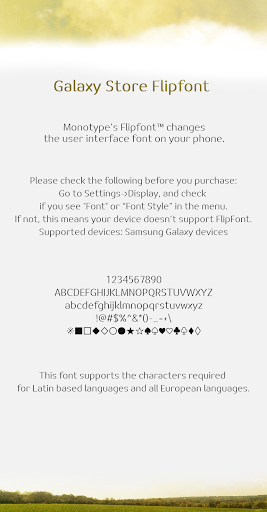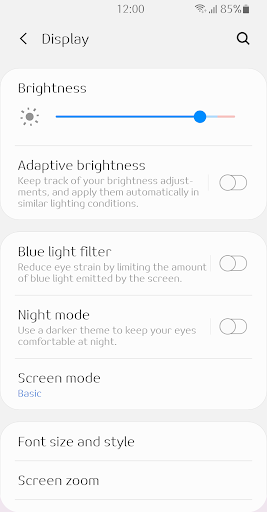
ZFNostalgia
It is a stable font with a sans-serif style.
The difference in thickness between the horizontal and vertical strokes has been used to create a comfortable and stable posture and to optimize the reading of the text.
I close my eyes and think of you, lost in the vague thoughts that come to mind.
It's a longing that fades as I grow older, but it embraces me as warmly as a pastel.
I preserve treasured memories in my heart for enduring happiness.